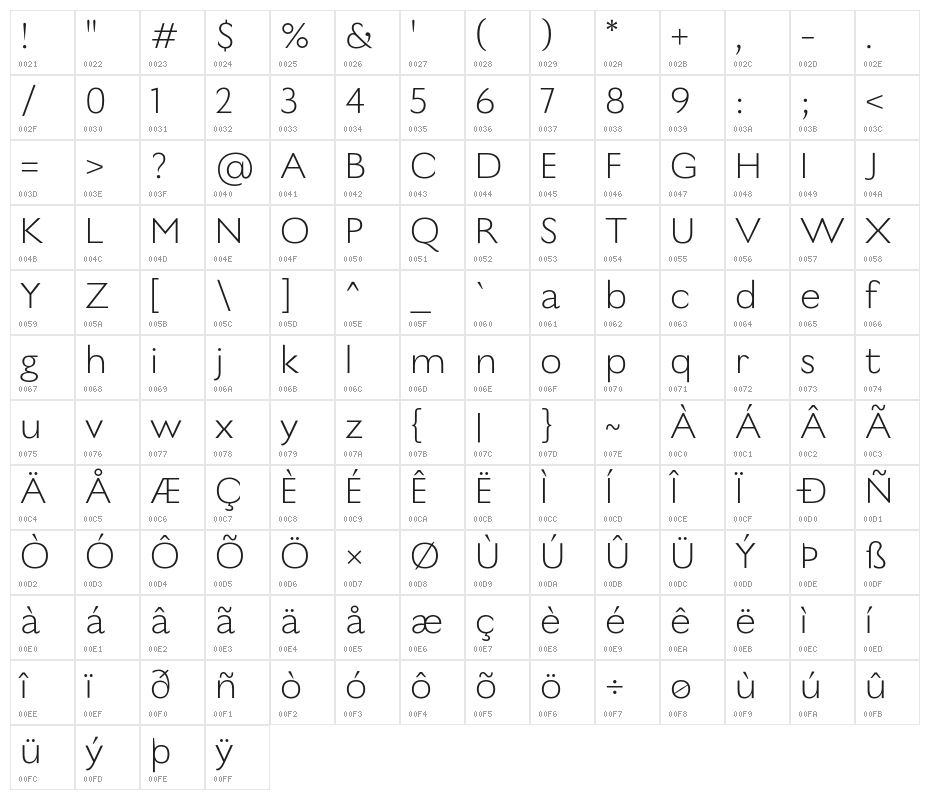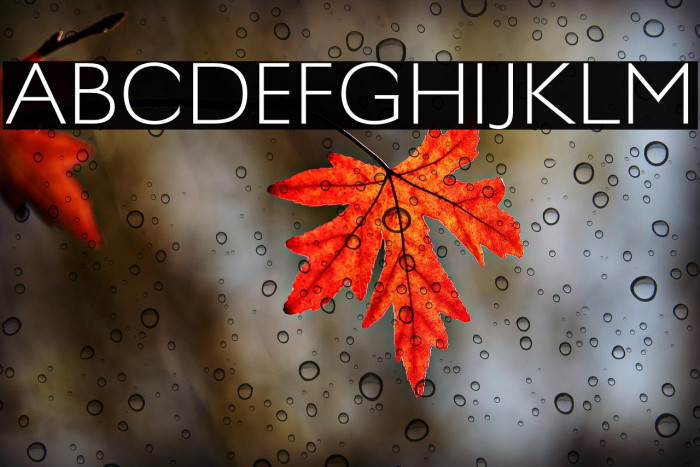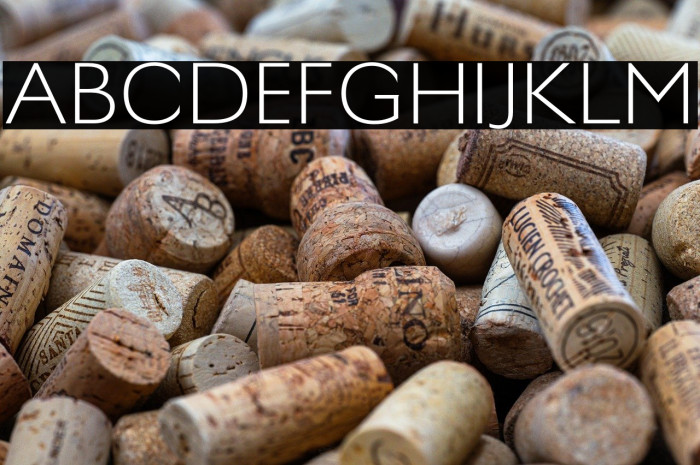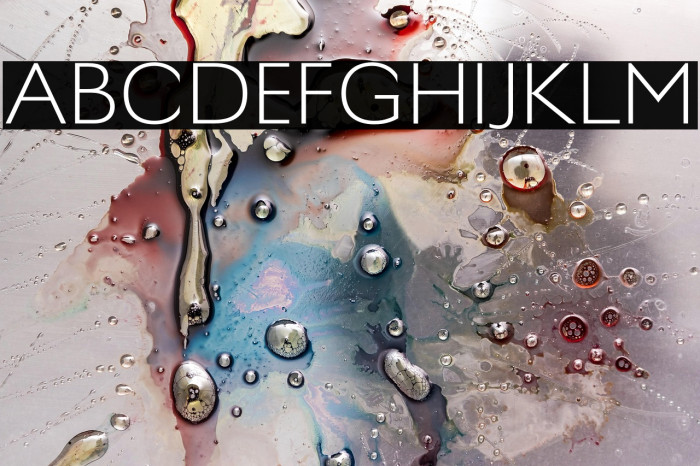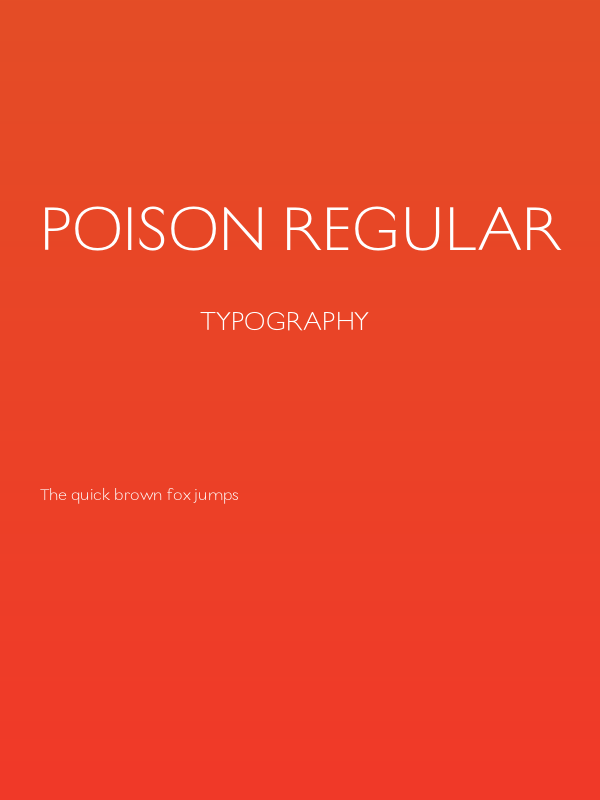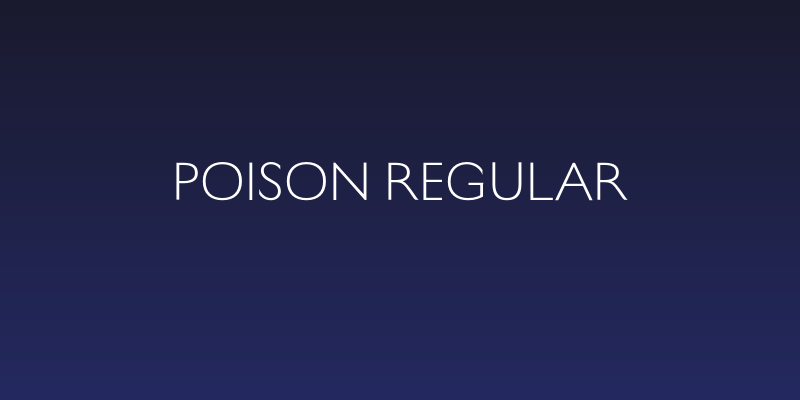
Poison Regular Font
Poison Regular Description
This font features a clean and modern sans-serif design, characterized by its simplicity and elegance. The letters are evenly spaced with a uniform stroke width, providing a balanced and harmonious appearance. The uppercase and lowercase letters maintain a consistent style, with smooth curves and straight lines that enhance readability. The numerals are clear and distinct, matching the overall aesthetic of the alphabet. Special characters are included, maintaining the same sleek and minimalist design. This font is versatile, suitable for a variety of design projects that require a contemporary and professional look.
| Proposed Projects | Ideal for branding, web design, corporate materials, and editorial layouts. |